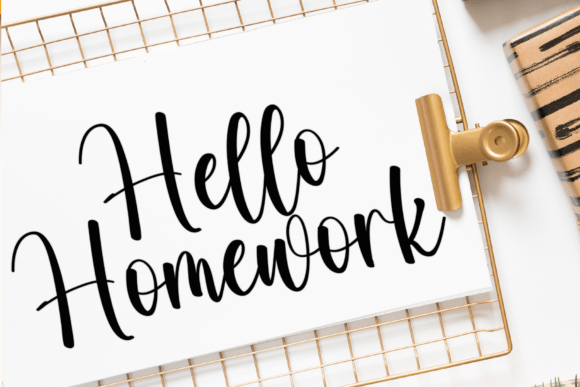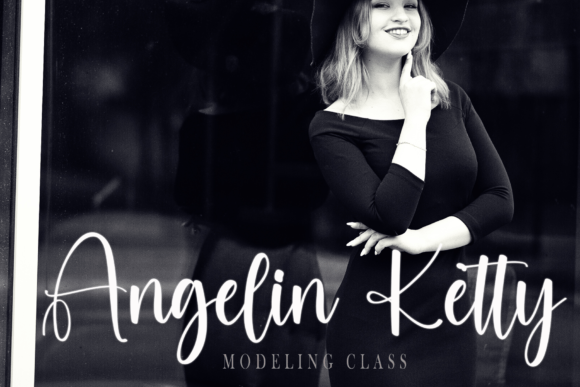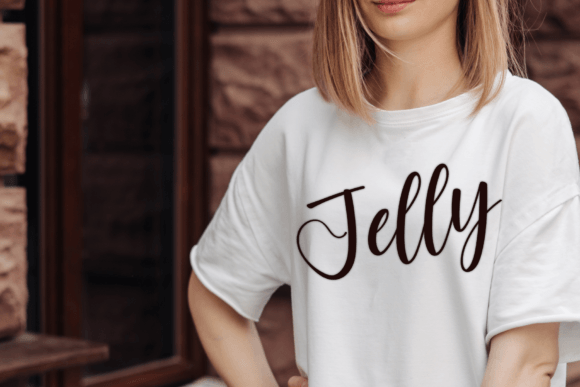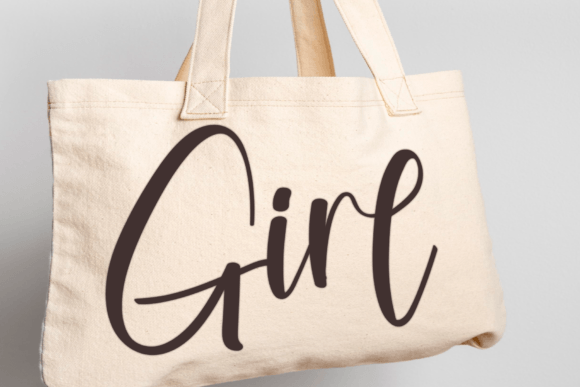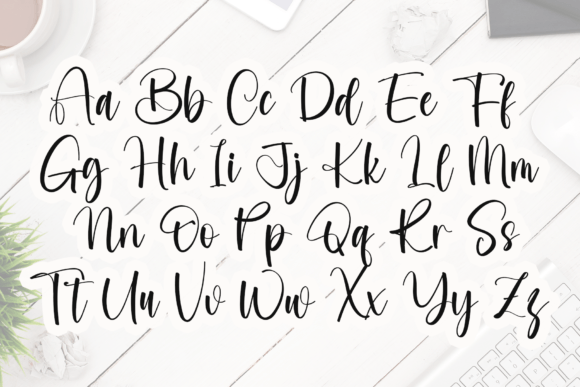
Getting Cozy with Autumn’s Warmth
There’s something magical about sipping hot apple cider on a crisp autumn afternoon, surrounded by the vibrant colors of fallen leaves. It’s a moment that sparks creativity and inspires us to get crafty. For designers, this time of year is the perfect opportunity to experiment with new fonts that evoke the warmth and coziness of the season.
Enter the Autumn Font, a sweet and friendly handwritten font that’s perfect for adding a fun touch to your designs. Whether you’re writing wedding invitations, cards, or any other project that needs a little extra love, this font is sure to bring a smile to your face. With its fresh and neat design, the Autumn Font is a valuable asset for any designer looking to add a personal touch to their work.
Autumn Font Key Features
- Unique Characteristic: Autumn Font features a unique blend of rustic and elegant elements, creating a warm and inviting atmosphere.
- Number of Characters: The font family includes a comprehensive set of characters, including uppercase and lowercase letters, numbers, punctuation marks, and special characters.
- Language Support: Autumn Font supports multiple languages, including English, Spanish, French, German, Italian, Portuguese, and many more.
- Font Styles: The font family includes multiple styles, including Regular, Italic, Bold, and Bold Italic, allowing for a range of design possibilities.
Autumn Font Review
Overall, I think the Autumn Font is a decent addition to any design project. Here are some things that I think work well: ✨
- Warm and cozy aesthetic: The Autumn Font has a nice, autumnal feel to it that’s perfect for projects that need a seasonal or rustic vibe.
- High-quality glyphs: The font includes a wide range of glyphs, including accented characters and punctuation, which makes it a solid choice for any project.
- Clean and legible: The font is easy to read, even at smaller font sizes, which is important for projects where readability is a top priority.
However, there are a few limitations that I think are worth noting: ⚠️
- Limited font sizes: The Autumn Font only comes in a few different font sizes, which might make it less versatile than other fonts.
- No bold or italic options: If you need to emphasize certain text, you’ll need to use a different font or create a custom version of the Autumn Font.
- Not ideal for large blocks of text: While the font is legible, it’s not the best choice for large blocks of text, as it can start to feel a bit cluttered.
Overall, I think the Autumn Font is a solid choice for projects that need a seasonal or rustic vibe. While it has some limitations, I think it’s a great addition to any designer’s toolkit.
Tips: Use Autumn Font to create seasonal designs, such as fall-themed invitations, social media posts, and marketing materials.
Tips: Use Autumn Font to create custom graphics, logos, and illustrations for your brand or marketing materials.
Tips: Use Autumn Font to create presentations, reports, and documents that incorporate seasonal themes.
Autumn Font is perfect for:
- Fall-themed designs, such as invitations, social media posts, and marketing materials.
- Seasonal branding, such as logos, graphics, and illustrations for your brand.
- Presentations, reports, and documents that incorporate seasonal themes.